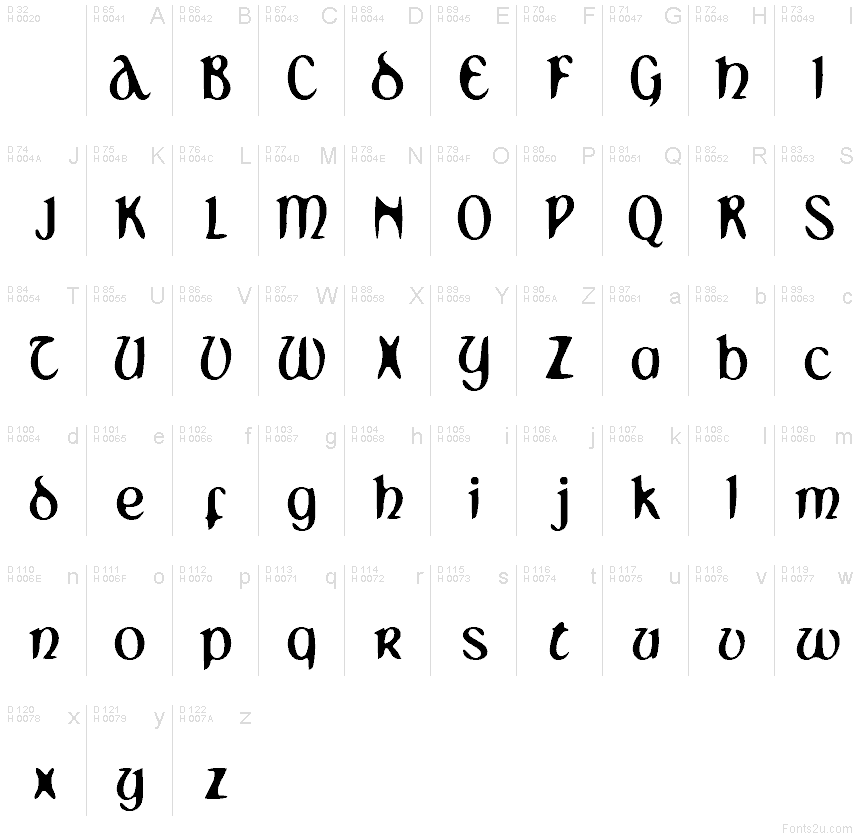
CS Kurse Drawn font by Craft Supply Co. is a free bold celtic display font. Built within the CS Kurse family, it leans into hand-drawn, inky strokes that swell and taper like a brush on rough paper. The letters curve with a lively Gaelic swing, edges slightly scalloped, giving headlines a carved, storybook presence without turning clumsy or kitsch.
Using CS Kurse Drawn, you’ll get commanding titles for fantasy book covers, pub signage, festival posters, game splash screens, craft beer labels, and heritage packaging. This free font thrives large, where its texture and rhythm can breathe. Pair it with a light humanist sans for captions, or track it slightly open to enhance the airy, organic flow.